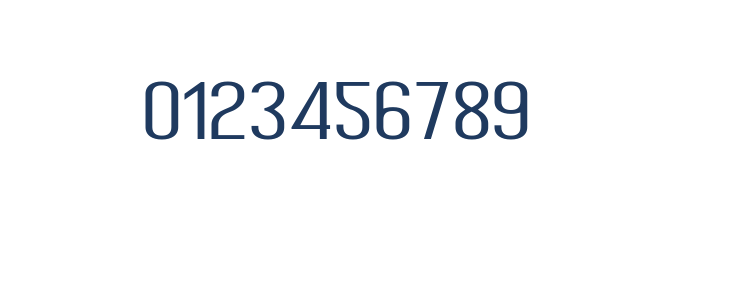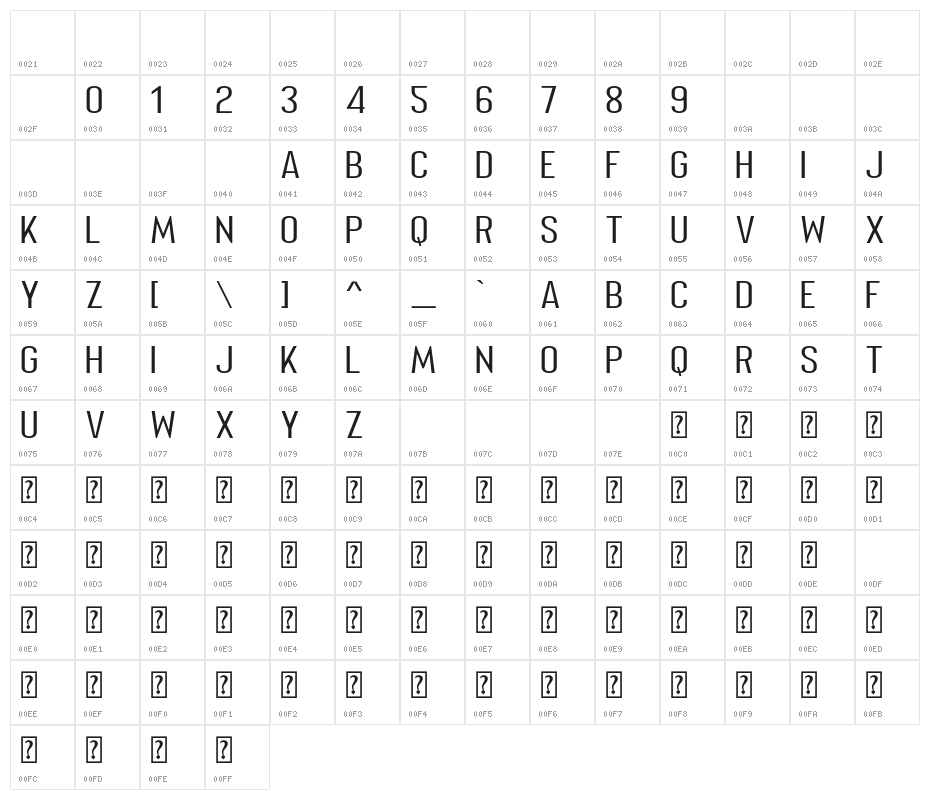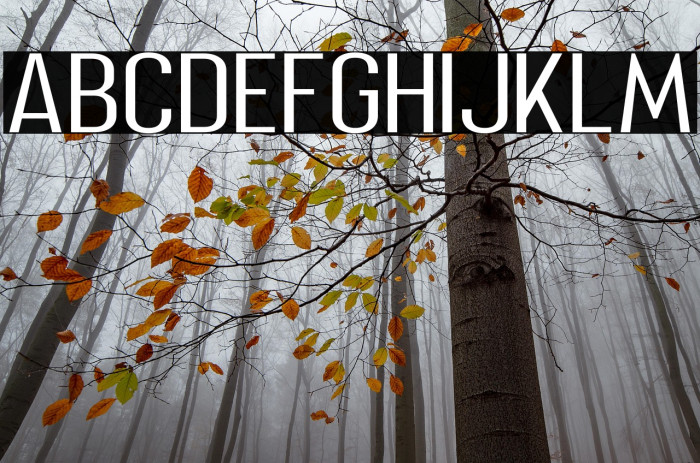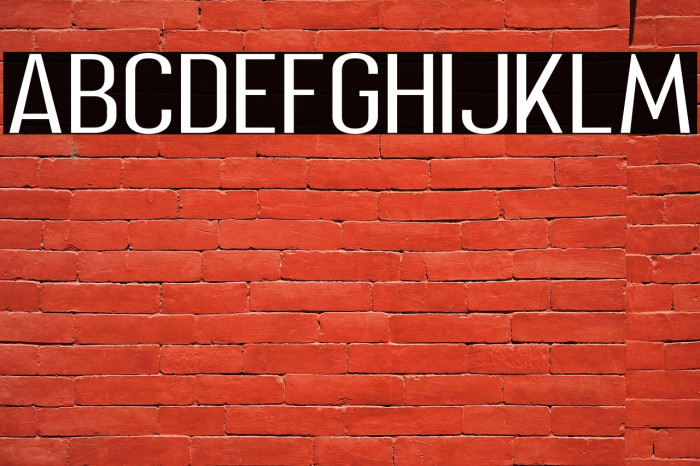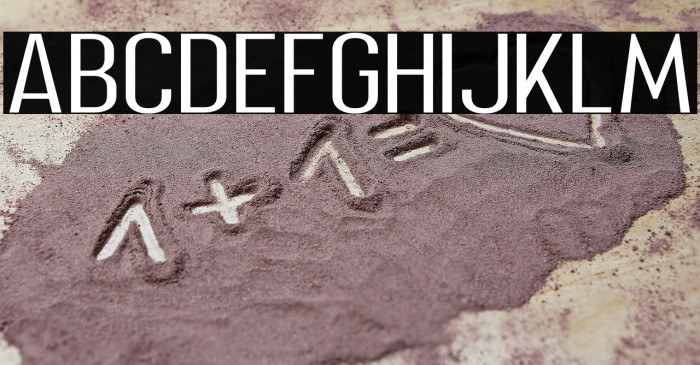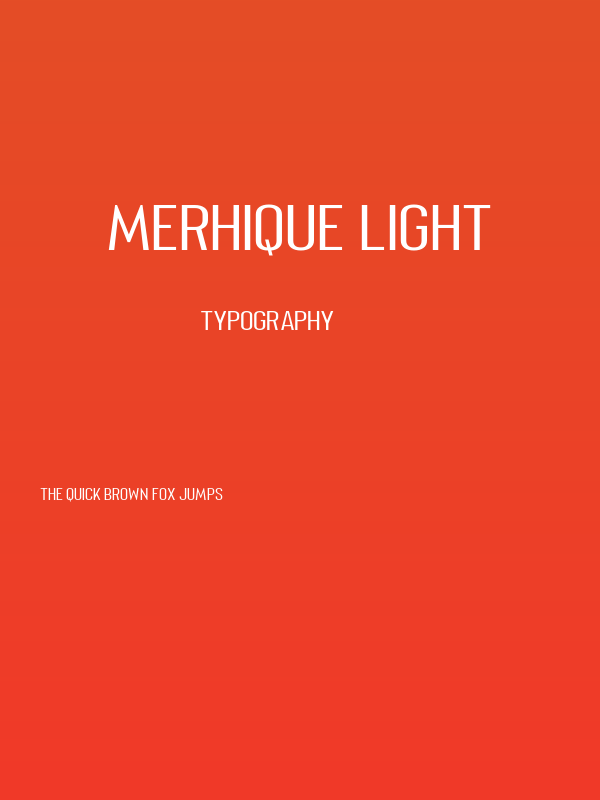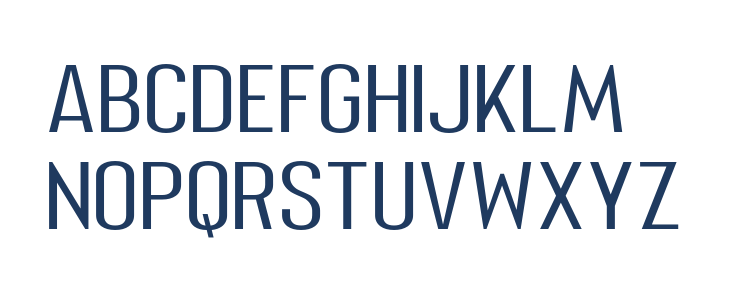
Merhique Light Font
Merhique Light Description
This font features a clean and modern sans-serif style with a light weight, offering a sleek and professional appearance. The characters are tall and slightly condensed, providing a sense of elegance and sophistication. The uniform stroke width contributes to a harmonious and balanced look, making it suitable for a variety of design applications. The font maintains a consistent baseline and x-height, ensuring readability across different sizes. Its minimalist design is ideal for contemporary projects, where clarity and simplicity are paramount. The numerals are well-proportioned, aligning seamlessly with the alphabetic characters, and the overall design exudes a sense of modernity and precision.
Proposed ProjectsIdeal for branding, editorial design, websites, and corporate materials.